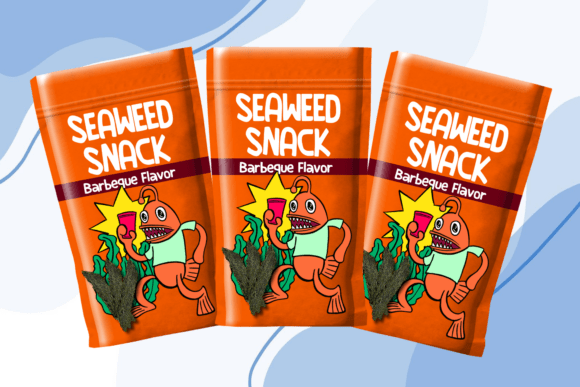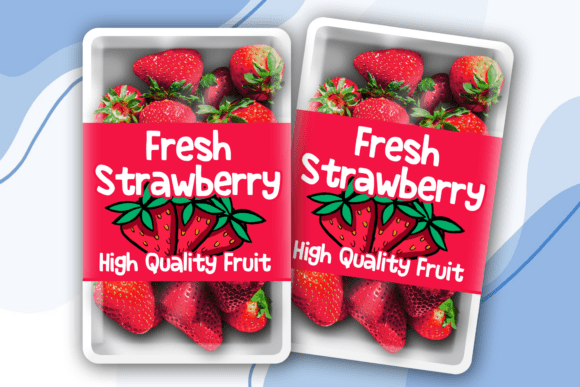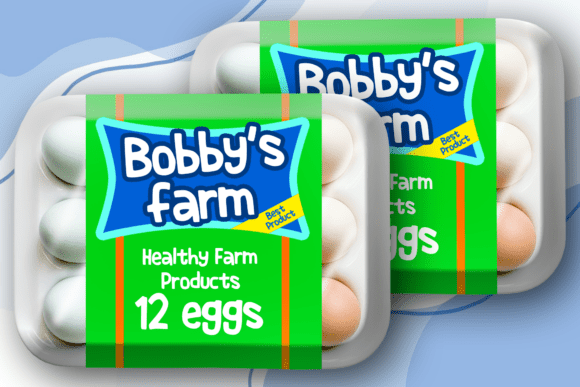
Start Your Day Off Right with the Perfect Font
Who hasn’t experienced that magical moment when a design idea strikes you, and you can’t wait to bring it to life? For designers, those moments are the best, and the right font can make all the difference. Imagine you’re working on a project for a food truck, and you need a font that screams “breakfast” – something playful, yet professional.
That’s where the Good Breakfast Font comes in – a fun and versatile handwritten font designed to add a personal touch to your packaging designs, t-shirts, and more. With its incredibly versatile style, this font is perfect for adding a fun touch to your food and beverage business or any project that needs a little whimsy.
Whether you’re a seasoned designer or just starting out, the Good Breakfast Font is a valuable addition to your toolkit. Its unique style and versatility make it an excellent choice for a wide range of projects, from stickers and posters to kids’ book designs and greeting cards.
Good Breakfast Font Key Features
- Font Family: Good Breakfast is a sans-serif font family designed for optimal readability, making it perfect for body text, titles, and headings.
- Character Count: The Good Breakfast font family consists of 500 characters, including uppercase and lowercase letters, numbers, punctuation, and special characters.
- Unique Characteristics: The font features a clean, modern design with a subtle rounded edge, making it easy to read and visually appealing.
Designer Review: Good Breakfast Font
Overall, I think the Good Breakfast Font has some great qualities, but also some areas that need improvement. ✨
- Unique Character Design: The font has a playful, whimsical feel to it, making it perfect for creative and fun projects.
- High-Quality Vectors: The vector files are clean and well-designed, making it easy to use them in various applications.
- Good Legibility: The font is easy to read, even at smaller sizes, which is a must for any font.
- ⚠️ Limited Character Set: The font only includes a limited set of characters, making it difficult to use for longer texts or in situations where a full character set is required.
- ⚠️ No Cyrillic Support: The font does not include Cyrillic characters, which can be a problem for designers working with languages that use the Cyrillic alphabet.
- ⚠️ Not Ideal for Body Text: While the font is great for headlines and titles, it’s not the best choice for body text, as it can be difficult to read at larger sizes.
Overall, I think the Good Breakfast Font is a great choice for creative projects where you want to add a touch of whimsy and fun. However, it’s not suitable for more formal or professional projects, and it may require some additional font pairing to get the best results.
Good Breakfast Font is ideal for:
- Children’s products and packaging
- Playful marketing campaigns
- Illustrations and graphics